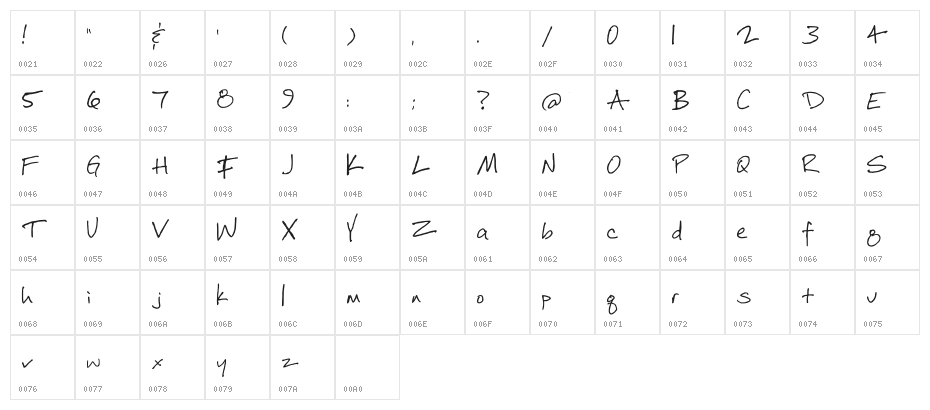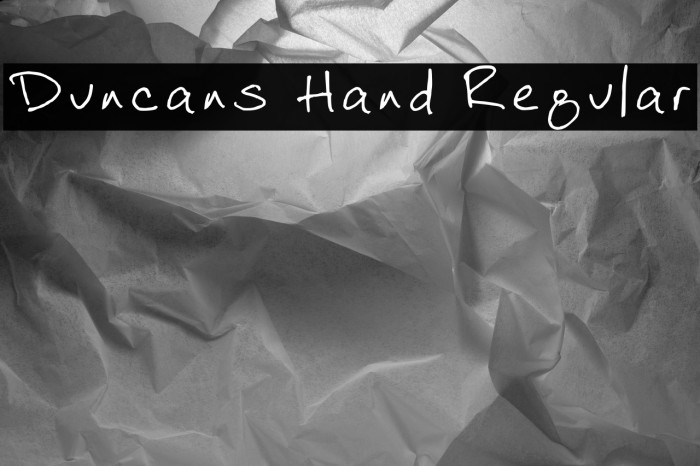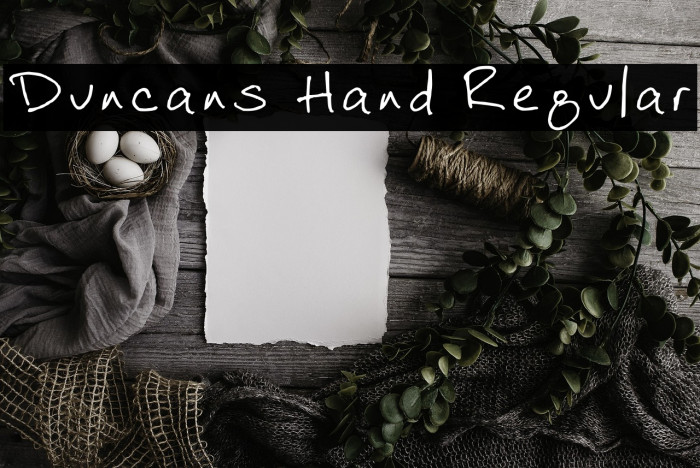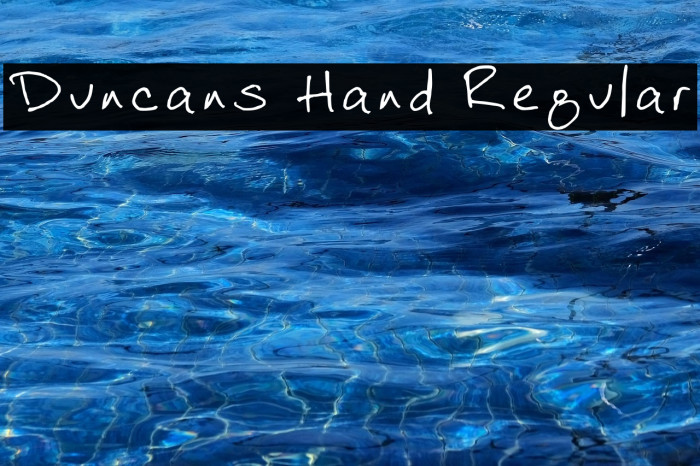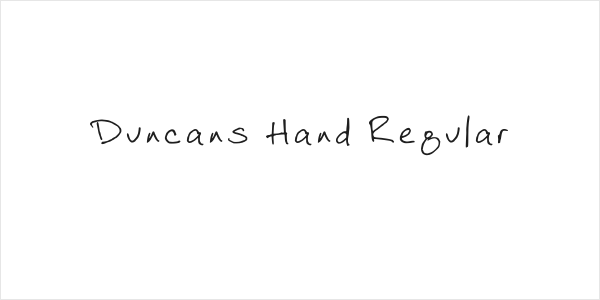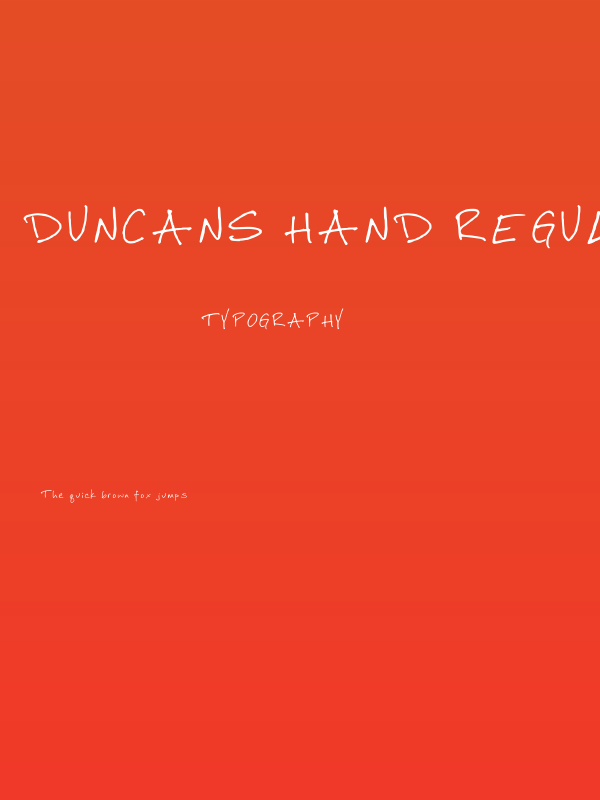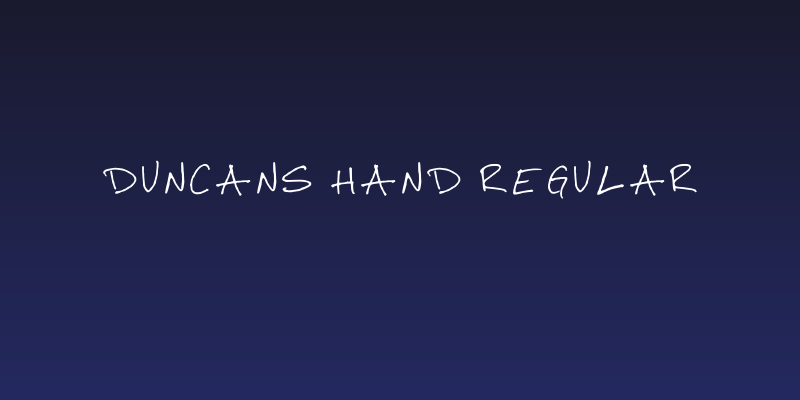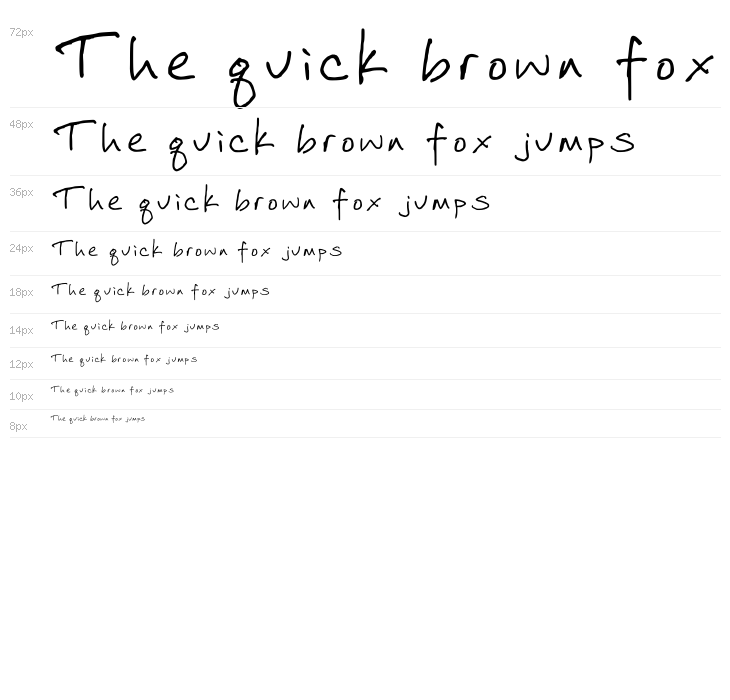
Duncans Hand Regular Font
Duncans Hand Regular Description
A casual, handwritten font with a natural and informal appearance, featuring uneven strokes and a playful style.
| Use Case | Personal notes, informal designs. |
| Proposed Projects | Greeting cards, personal notes, informal invitations. |